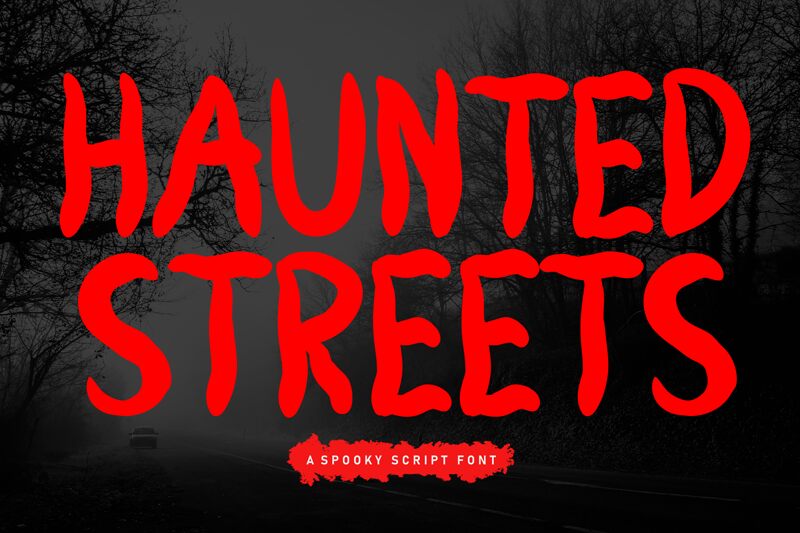
Haunted Streets font designed by Andi Moz is a free font that is irregular, eerie, and unsettling. It’s intuitively themed, with a sharp style, giving away an atmosphere of mystery and drama. Modern letters with bold presence and attention-grabbing style make this display typeface the perfect go-to typography in Halloween or event-related projects. Its all-caps letters create an immediate impact and graceful atmosphere.
Use the authors’ creation freely on invitations, greetings, posters, headlines, websites, online promotional content, banners, book titles, or other print projects. It’s suitable for projects for kids and adults and all holiday-oriented environments. Give it a try as it’s both fun and legible for all audiences.